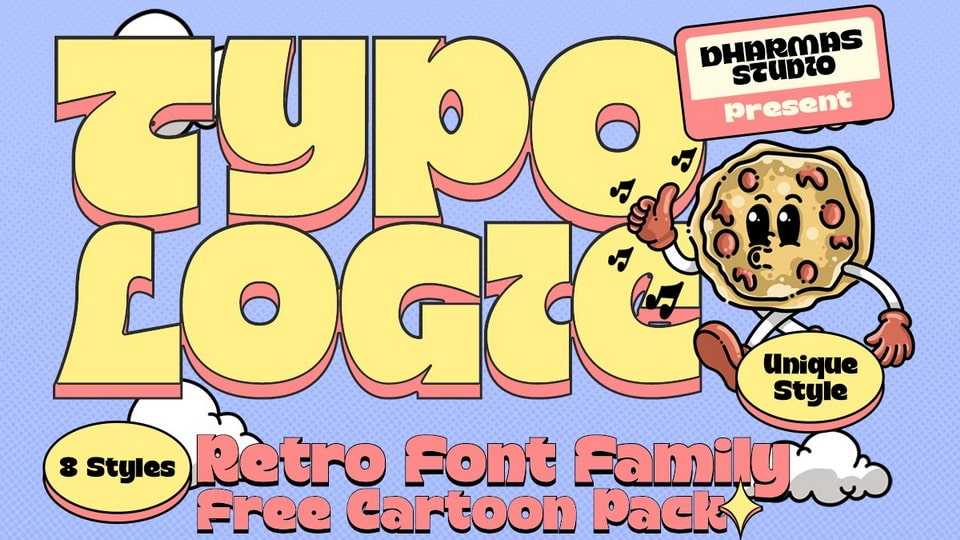
Download Typologic font, a display typeface that effortlessly fuses geometric simplicity with the vibrant pop culture styles of the swinging 60s and 70s. Typologic is your ultimate design companion.